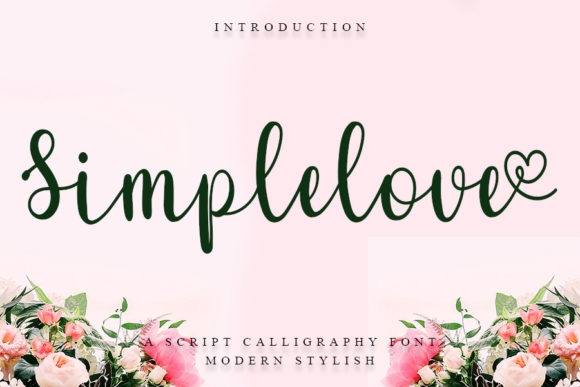
Unleash the Allure of Simplelove: A Bold Handwritten Font to Captivate Your Designs
Immerse yourself in the world of Simplelove, an extraordinary script font that exudes confidence and dynamism. Crafted with meticulous attention to detail, this font is poised to elevate your creative projects, adding a touch of nostalgic charm.
With Simplelove, your headlines and logotype designs will radiate an aura of strength and personality. Its bold strokes and flowing lines command attention, making every word a statement. Whether you're designing for a business, a personal project, or simply exploring your creativity, Simplelove is your ultimate companion.
Discover the Versatility of Simplelove: A Font for Every Occasion
Simplelove is not merely a font; it's a versatile tool that adapts seamlessly to a multitude of design styles. Its inherent elegance lends itself perfectly to logos, branding materials, posters, and social media graphics. Unleash your imagination and let Simplelove guide you towards captivating designs that resonate with your audience.
Harness the Power of Simplelove: A Font That Speaks Volumes
Simplelove is more than just a collection of characters; it's a language of its own. Its bold strokes convey a sense of authority and confidence, while its flowing lines evoke a touch of nostalgia and charm. Whether you're crafting a logo for a modern business or designing a poster for a vintage-inspired event, Simplelove will amplify your message and leave a lasting impression.
Embrace the Simplicity of Simplelove: A Font That's Easy to Use
Simplelove is meticulously crafted to be user-friendly, ensuring a seamless experience for designers of all skill levels. Its PUA encoding allows for effortless access to all glyphs and swashes, making it a breeze to add intricate details and flourishes to your designs. Unleash your creativity and explore the endless possibilities that Simplelove has to offer.